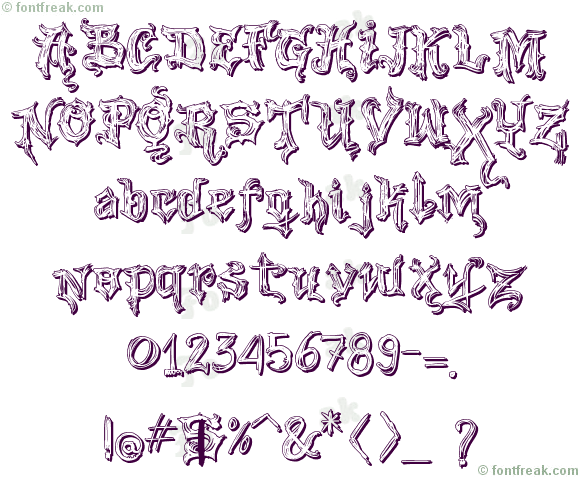
VTKS Good Vibration 2
About VTKS Good Vibration 2
VTKS Good Vibration 2, designed by Douglas Vitkauskas, is a decorative font that exudes a unique and artistic flair. This font is characterized by its intricate, flowing lines and ornate details, making it a standout choice for projects that require a touch of creativity. The stroke weight varies, providing a sense of dynamism throughout the letters, while the contrast adds depth and visual interest. The spacing is thoughtfully designed, ensuring readability while still maintaining the font's artistic essence. The decorative elements, such as flourishes and embellishments, contribute to its vibrant personality.
This font is ideal for a variety of specific use cases. It can be effectively utilized in wedding invitations, where its elegant style adds a romantic touch. Additionally, VTKS Good Vibration 2 is perfect for creating eye-catching movie posters that aim to convey an adventurous or whimsical theme. Restaurant menus can also benefit from its artistic flair, enticing customers with a visually appealing presentation. Furthermore, it serves well in music event flyers, capturing the essence of the vibrant atmosphere often associated with such occasions.
What truly sets VTKS Good Vibration 2 apart is its distinctive character and versatility. It can elevate ordinary text into a work of art, making it an excellent choice for those looking to make a memorable impression. Whether used for personal or commercial projects, this font is sure to resonate with audiences and leave a lasting impact.